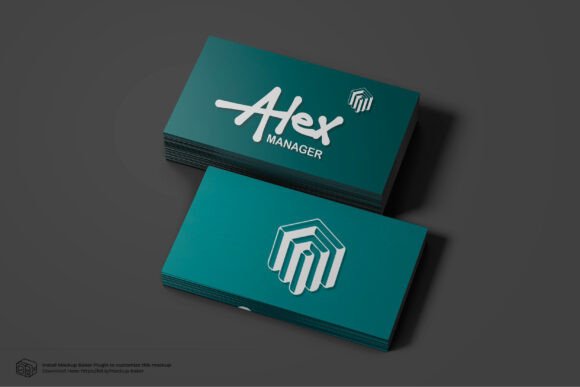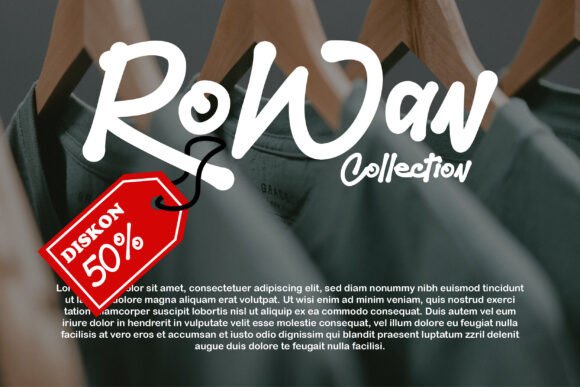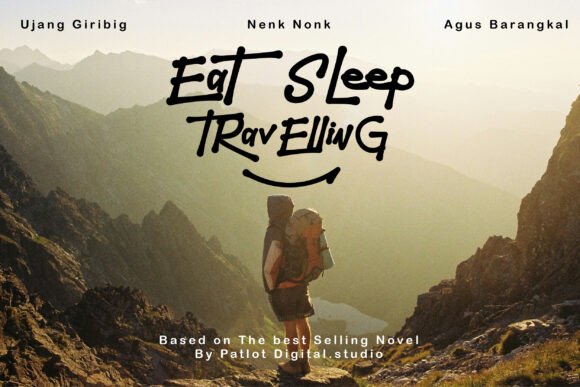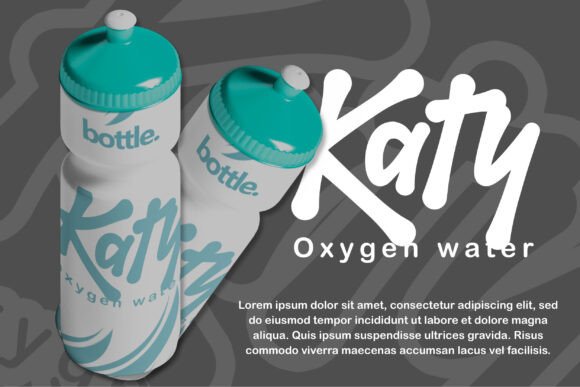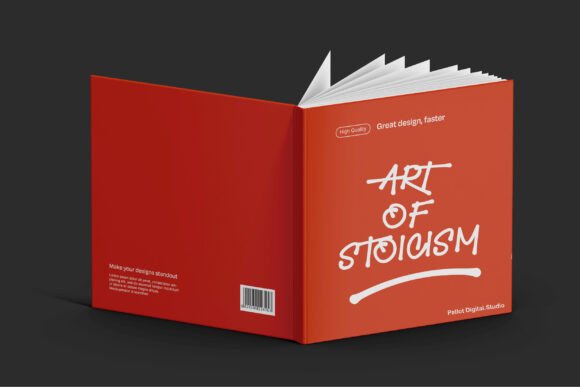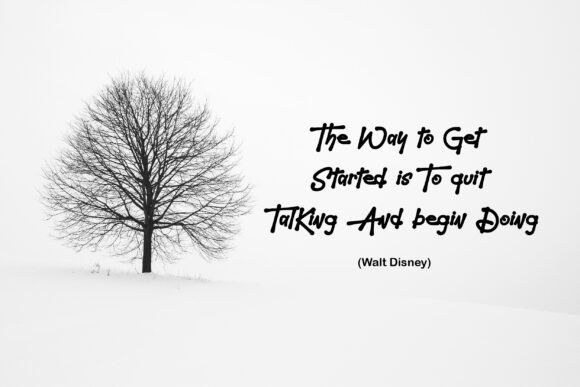
Introduction to Kyle Handwritten Font
Have you ever stared at a blank page, trying to bring your creative vision to life, only to find yourself stuck in a sea of generic fonts? I know I have. But what if I told you there’s a font that can change all that? A font that’s not just another design resource, but a game-changer for your creative projects.
Meet the Kyle Handwritten Font, a beautifully crafted typeface that adds a personal touch to your work. With its casually sophisticated style, this font is perfect for logo designs, social media posts, movie and book titles, and so much more. Whether you’re a seasoned designer or a beginner, the Kyle Handwritten Font is a valuable addition to your design arsenal, offering a high-quality, unique look that’s sure to elevate your work.
Key Features of Kyle Handwritten Font
- High-quality, unique handwritten font ideal for creative projects, such as branding and design materials.
- Comes in a single weight, providing a clean and consistent aesthetic for design projects.
- Includes 256 glyphs, covering a wide range of languages, making it a versatile design resource.
- Designed with a modern, elegant feel, perfect for use in digital and print materials.
Honest Review: Kyle Handwritten Font
I recently stumbled upon the Kyle Handwritten Font and I must say, it’s been a game-changer for my creative projects. The high quality of this font is evident in its smooth, cursive strokes and elegant appearance.
Here are some of the things that work well with the Kyle Handwritten Font:
- ✨ Elegant and sophisticated design
- ✨ Smooth, cursive strokes
- ⚠️ Limited font styles and variations
- ⚠️ May not be suitable for all design projects
Overall, I’m thoroughly impressed with the Kyle Handwritten Font. Its high quality and elegant design make it a valuable addition to any designer’s toolkit. Whether you’re working on a creative project or simply need a beautiful font for your design, the Kyle Handwritten Font is definitely worth considering.
To get the most out of the Kyle Handwritten Font, use it in combination with other design resources to create visually appealing graphics and layouts. Common use cases include:
- Personalized gift tags and cards
- Food and beverage branding
Alternatives to Kyle Handwritten Font
Pacifico is a high-quality, elegant script font perfect for creative projects that require a sophisticated and refined look. It’s available for free download and features a transparent background, making it easy to use on any design resource. Use Pacifico for projects that need a touch of luxury, such as wedding invitations, luxury branding, or high-end packaging.
Pacifico compares to Kyle Handwritten Font in its elegant and refined look, but it has a more modern and sleek feel. While Kyle Handwritten Font has a more playful and casual vibe, Pacifico is ideal for projects that require a more professional and sophisticated look.
Great Vibes is a beautiful, handwritten font that’s perfect for creative projects that need a touch of whimsy and personality. It’s available for free download and features a transparent background, making it easy to use on any design resource. Use Great Vibes for projects that need a playful and energetic vibe, such as social media graphics, blog posts, or advertising campaigns.
Great Vibes compares to Kyle Handwritten Font in its playful and casual vibe, but it has a more relaxed and laid-back feel. While Kyle Handwritten Font is ideal for projects that need a touch of personality, Great Vibes is perfect for projects that need a more carefree and spontaneous vibe.